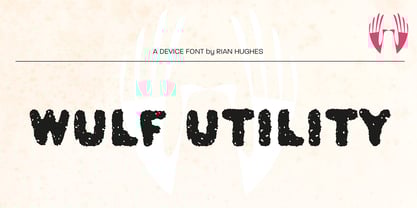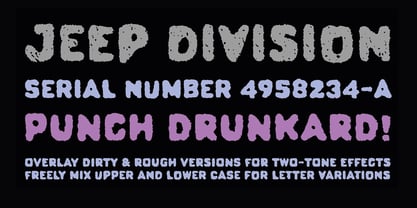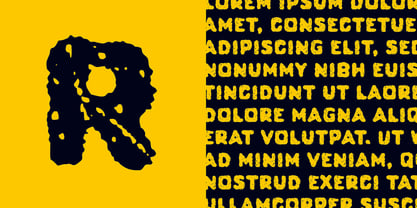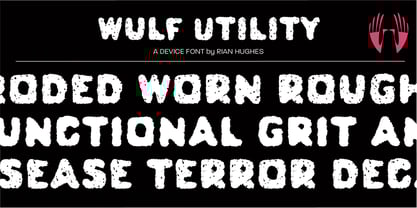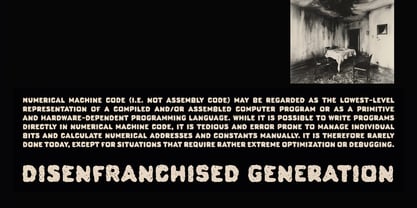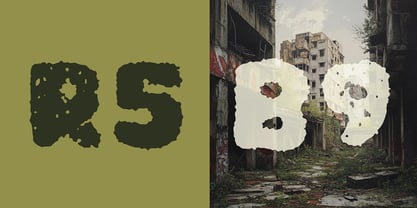
Wulf Utility
The Wulf Utility Font Family was designed by Rian Hughes and published by Device. Wulf Utility contains 2 styles and family package options.
Wulf Utility is a heavily degraded font that evokes information in a utilitarian manner without any pretence to elegance, fuss or refinement. Gruff and direct, it is about as basic as a font can be. The Dirty version can be layered over the Rough version for two-tone effects.